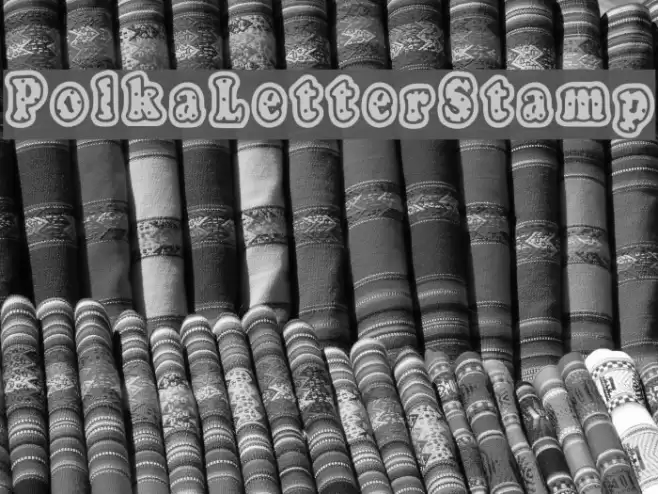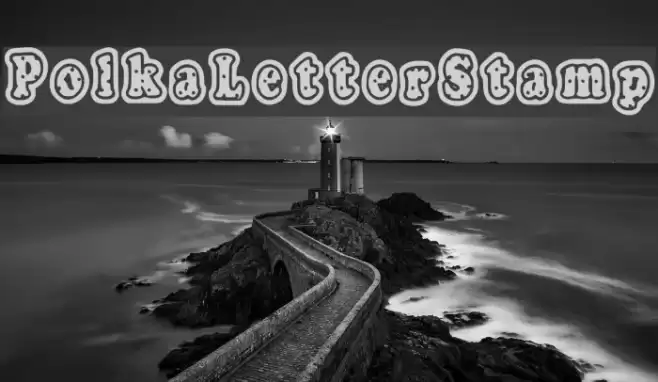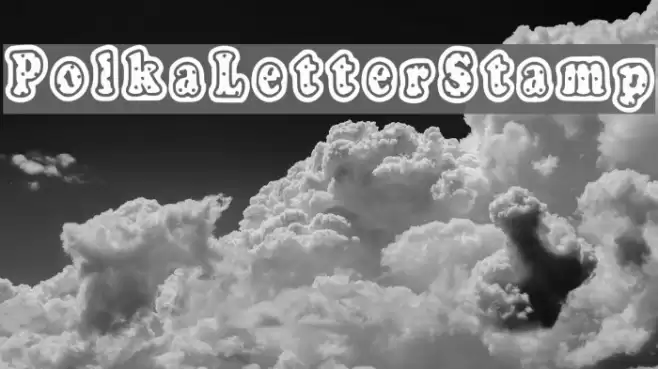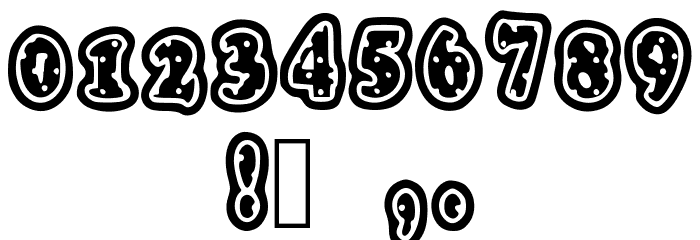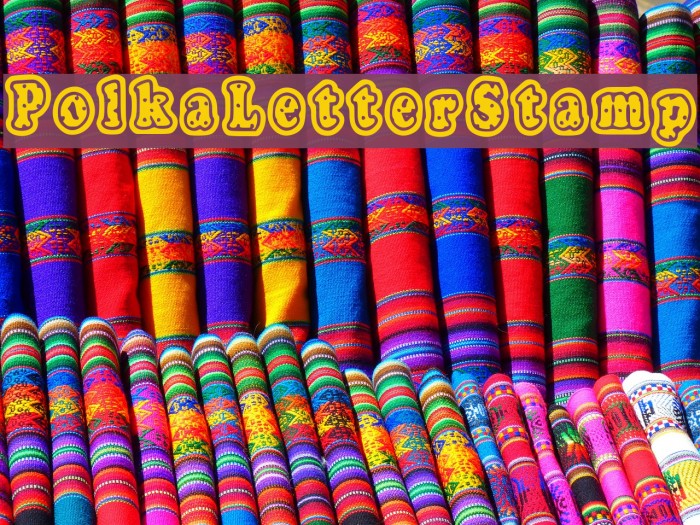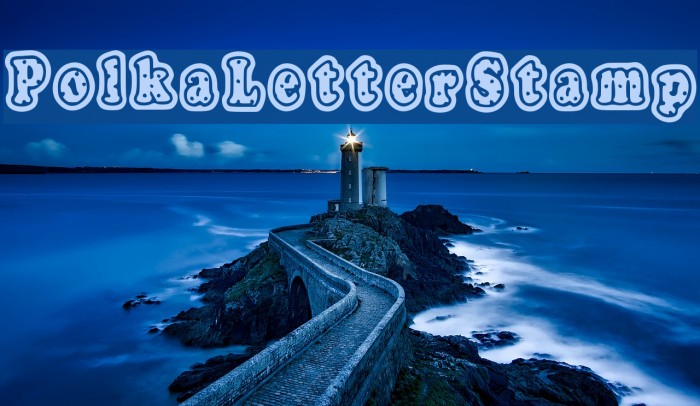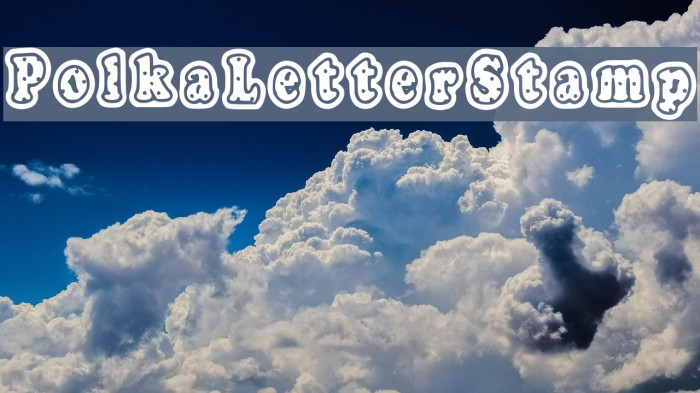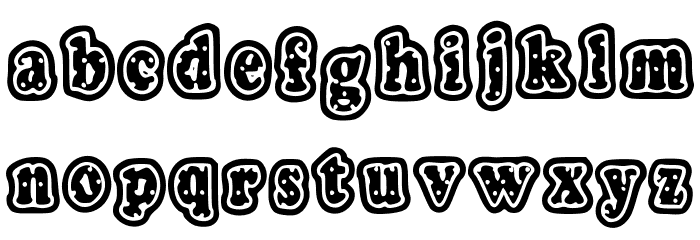
PolkaLetterStamp Font
PolkaLetterStamp Description
This playful and whimsical font features bold, rounded characters with a distinct polka dot pattern inside each letter. The letters are outlined with a thick black border, giving them a stamped appearance. The font is highly decorative, with each character exhibiting a unique and lively personality. The uppercase and lowercase letters maintain a consistent style, while the numbers and special characters complement the overall design. The polka dot pattern adds a fun and cheerful element, making it ideal for projects that require a touch of creativity and joy.
A playful, polka-dotted font with bold, rounded characters and a stamped appearance from Decorative fonts.
- Proposed Projects: Ideal for children's books, party invitations, playful branding, and festive posters.
- Overall Style: Playful, Whimsical